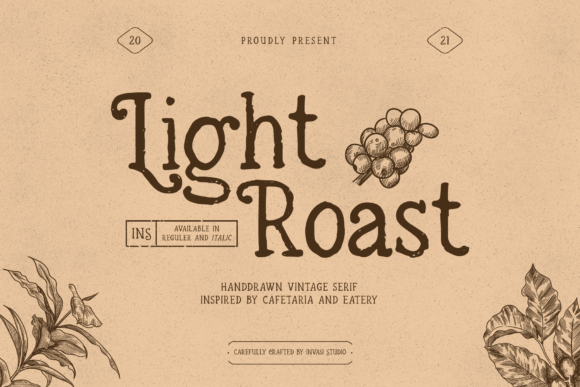
Feast your eyes on Light Roast Font, a vintage-styled serif font that oozes elegance and timeless charm. With its rough-textured edges and impeccable detailing, Light Roast adds a touch of sophistication to any project, making it the perfect choice for creating wedding invitations, elegant logos, eye-catching posters, and heartfelt love letters that speak to the soul.
Unleash your creativity with Light Roast's boundless versatility. Whether you're designing a heartfelt wedding website or crafting a rustic branding for your small business, this font effortlessly adapts to your vision. Its classic serif structure, reminiscent of vintage typewriters, evokes a nostalgic charm that resonates with audiences of all ages.
Immerse yourself in a world of creative possibilities with Light Roast's PUA encoding, granting you effortless access to a treasure trove of glyphs and swashes. Experiment with different combinations to create intricate designs that captivate your audience and leave a lasting impression.
With Light Roast, you unlock the key to unlocking remarkable and unforgettable designs. Its versatility shines across an array of projects, transforming ordinary concepts into captivating masterpieces. Say goodbye to bland, forgettable designs and embrace the beauty of Light Roast, the font that elevates your creativity and leaves you craving for more.